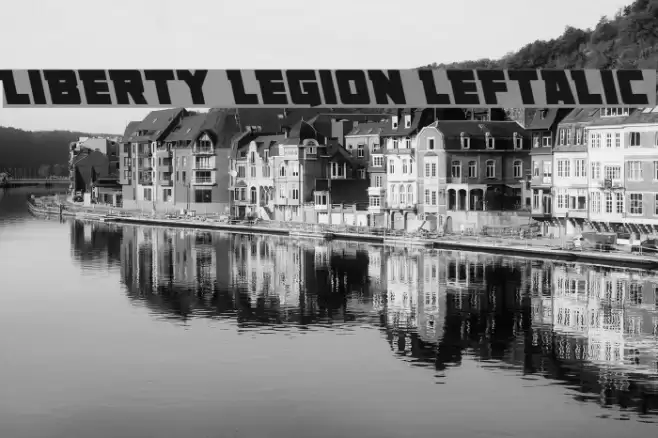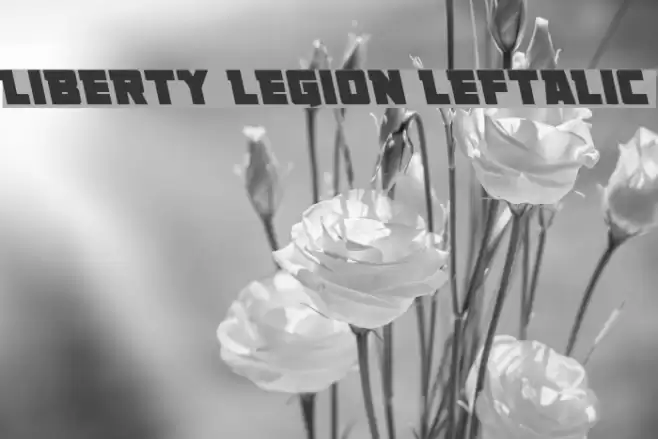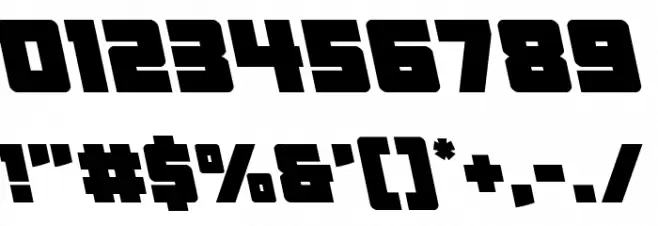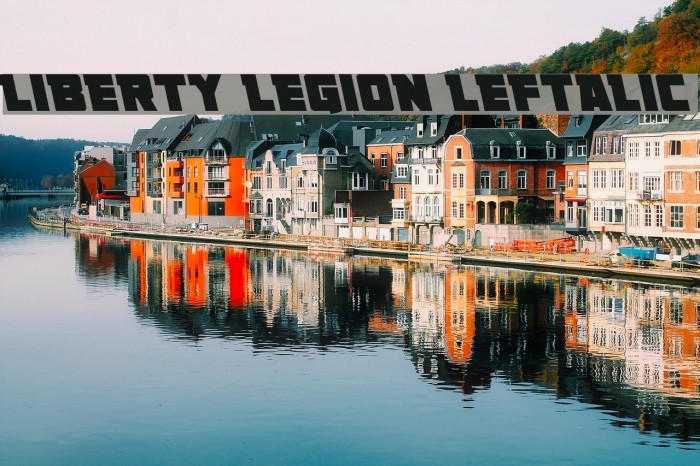
Liberty Legion Leftalic Font
Liberty Legion Leftalic Description
This bold, angular typeface features a strong, geometric design with a distinct slant to the left, giving it a dynamic and forward-moving appearance. The characters are blocky and robust, with consistent stroke widths that convey a sense of strength and stability. The uppercase letters are particularly striking, with sharp edges and a solid presence. The numerals and special characters maintain the same boldness, ensuring uniformity across all text. This font's unique style makes it ideal for attention-grabbing headlines and impactful visual statements.
A bold, angular typeface with a leftward slant and geometric design from Uncategorized fonts.
- Proposed Projects: Ideal for posters, logos, branding, and any project requiring a bold, impactful typeface.